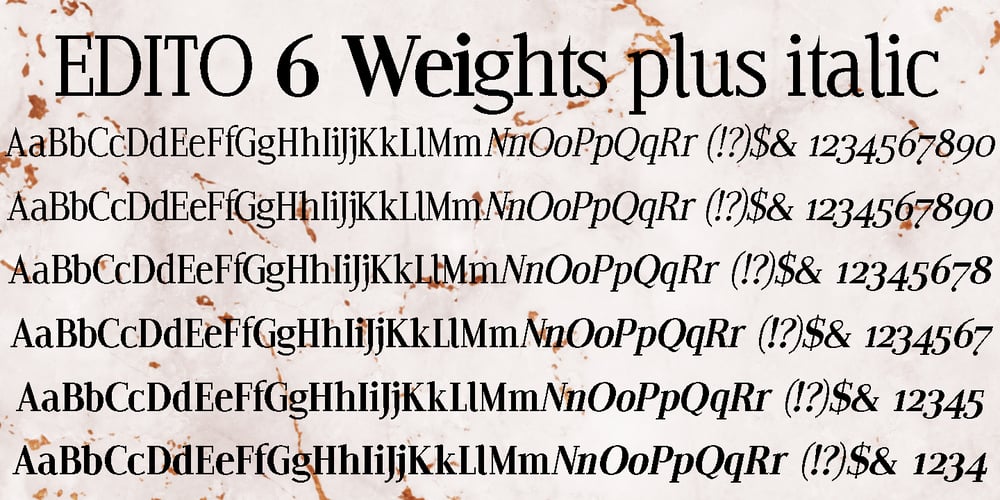
Edito Font Family was designed by Gert Wiescher and published by Wiescher Design. Edito contains 12 styles and family package options. Edito is a completely new bodycopy font. The special thing about this font is, that all serifs have the same height. So no matter if you take the thinnest cut (A) or the fattest (F), you will always have aligning serifs. I started Edito as an experiment. I tried to enhance the classic and sturdy Times font. But I soon dicovered, that it would be more efficient to take only the basic idea behind Times (the robust design) and start from scratch. It turned out a real solid and useful typeface for everyday use. In due time I will add a couple of extra cuts. Yours in a journalistic mood Gert Wiescher